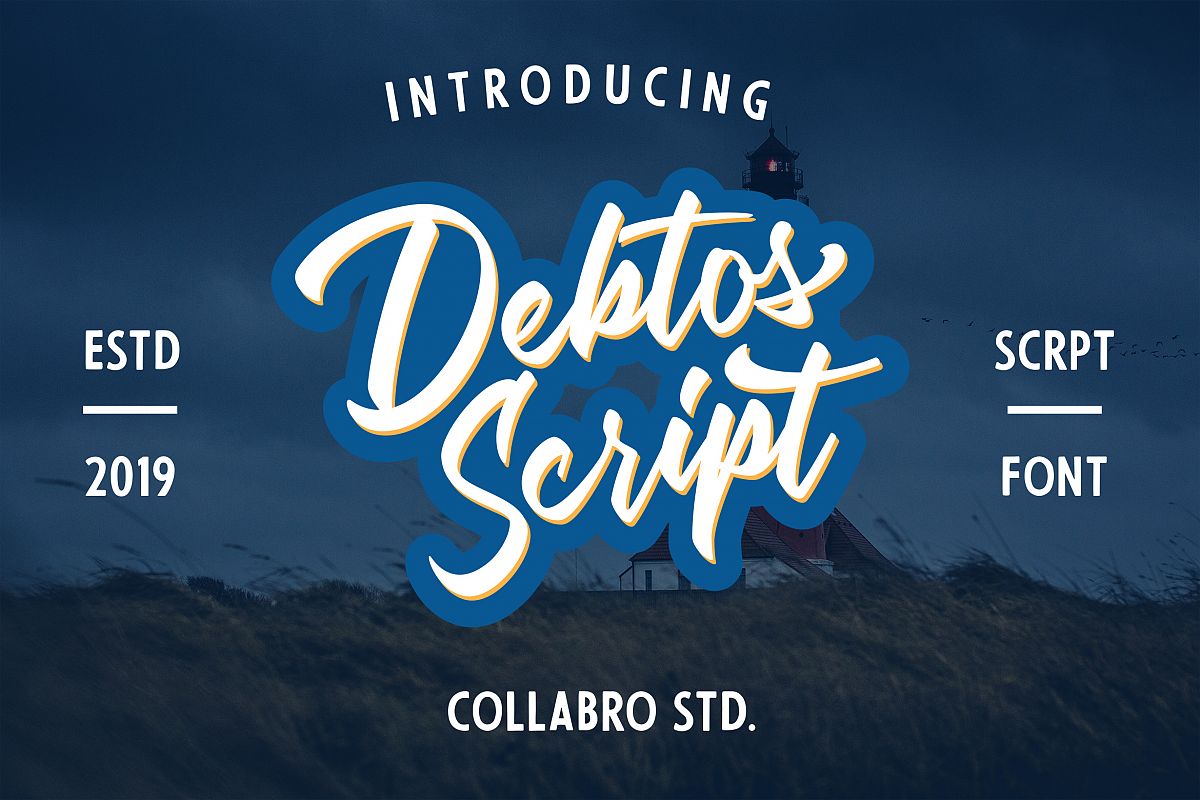
Debtos - Script
"Debtos" is a font display is made by hand, inspired by classic posters.
comes with uppercase, lowercase, numerals, punctuations and so many variations on each characters include opentype alternates, common ligatures and also additional swash to let you customise your designs. Perfect to use for Logotype, Letterhead, Poster, Apparel Design, Label and etc.
**OPENTYPE FEATURES**
* Swash
* Standard Ligatures
* Contextual Alternates
* Stylistic Alternates
* All Alternates